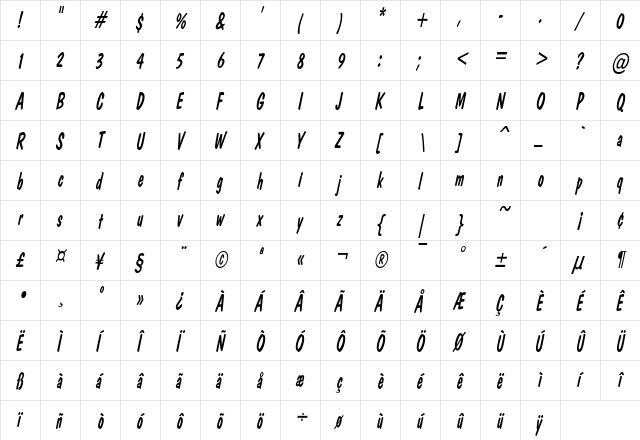
DonCasualCondensed Italic
Design Context for DonCasualCondensed Typeface
DonCasualCondensed is a composed and adaptable typeface that performs quietly and consistently across a wide range of design contexts. Its italic angle brings a sense of urgency and motion to the letterforms. The condensed width makes it efficient for tight spaces without sacrificing legibility.
Pro Tip: Use DonCasualCondensed for emphasis, pull quotes, and subheadings where its slanted energy can add rhythm to the layout.